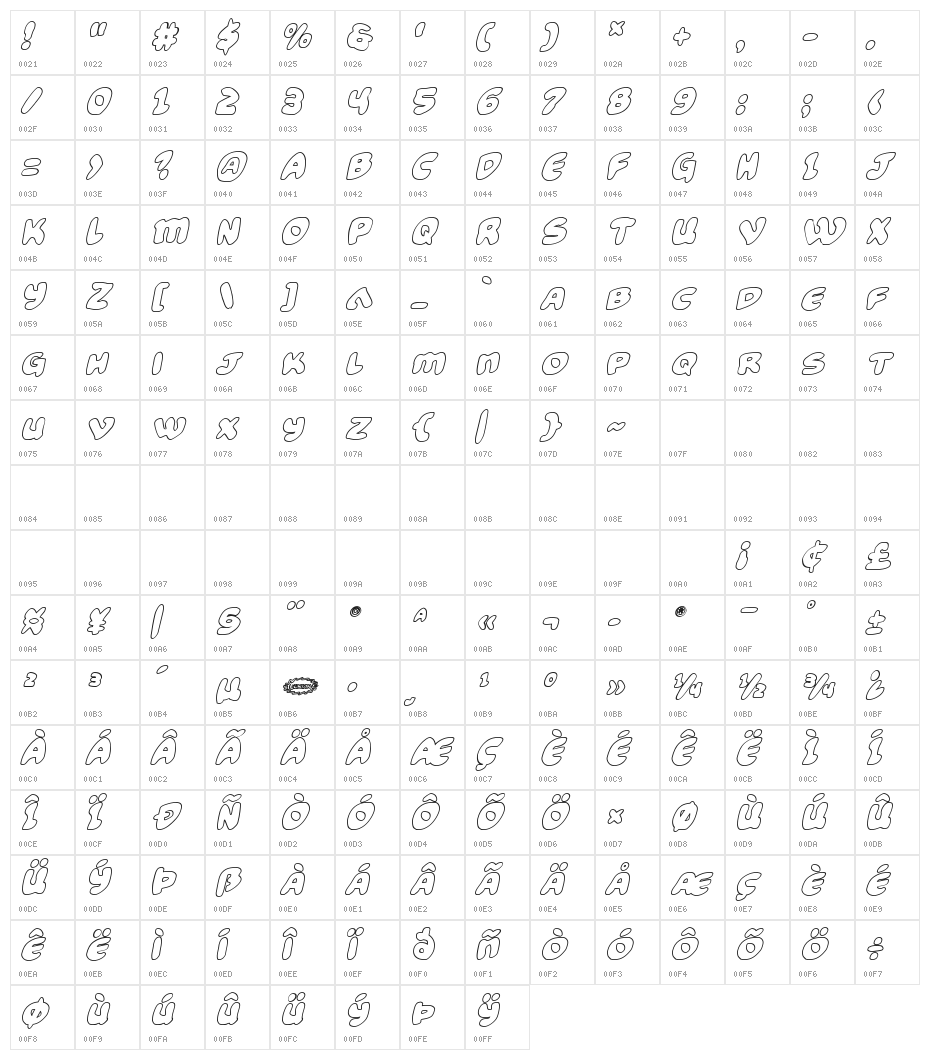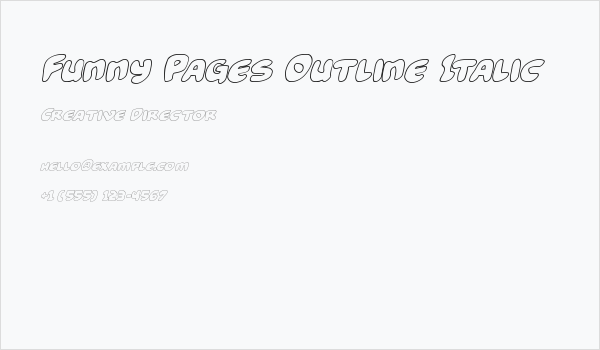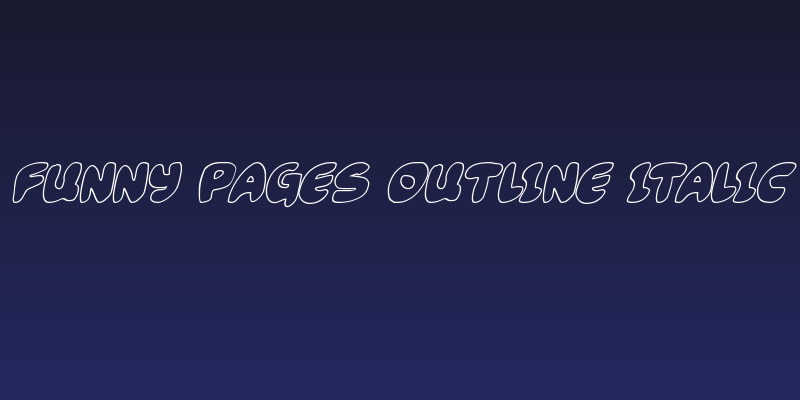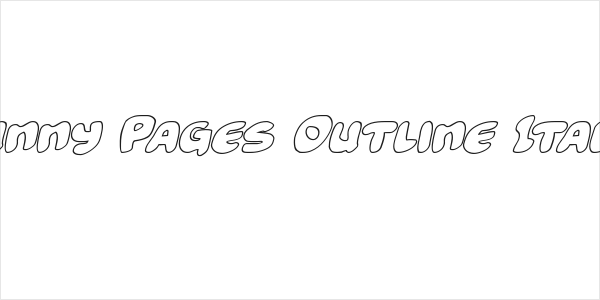
Funny Pages Outline Italic Font
Funny Pages Outline Italic Description
This playful and whimsical font features bold, rounded characters with a distinct outline that gives it a cartoonish feel. The letters are italicized, adding a dynamic and energetic touch to the overall appearance. The font's style is reminiscent of comic book lettering, making it ideal for projects that require a fun and informal look. Each character is well-defined, with consistent stroke thickness and smooth curves, ensuring readability while maintaining its playful nature. The numbers and special characters follow the same design principles, providing a cohesive and uniform appearance across all elements.
| Overall Style | Playful, Comic |
| Proposed Projects | Ideal for comic books, children's books, playful posters, and informal branding projects. |